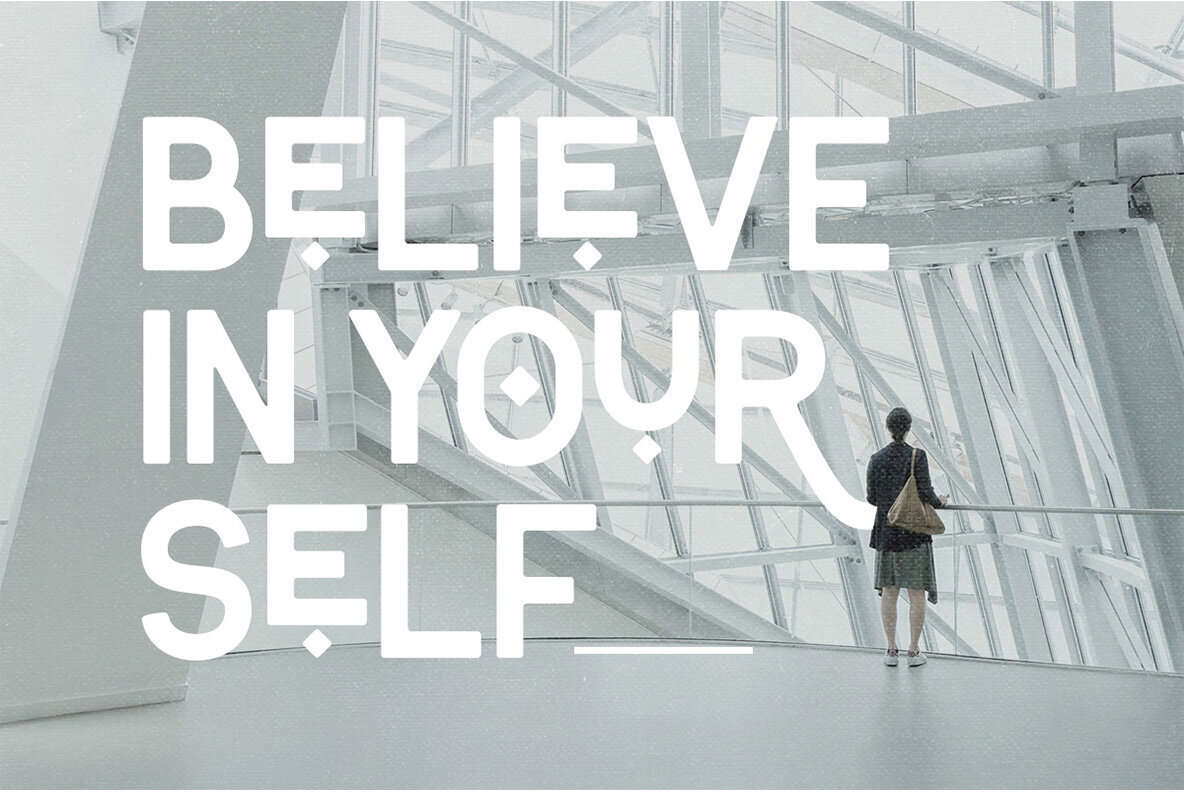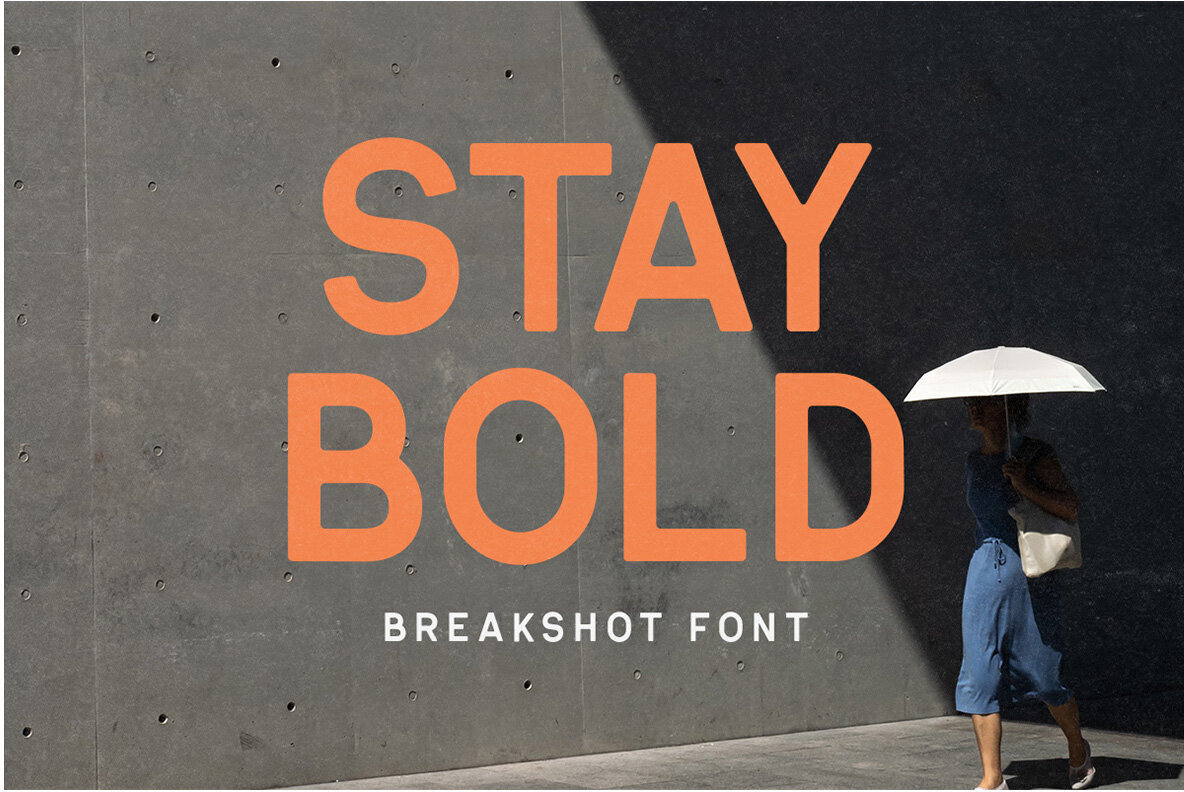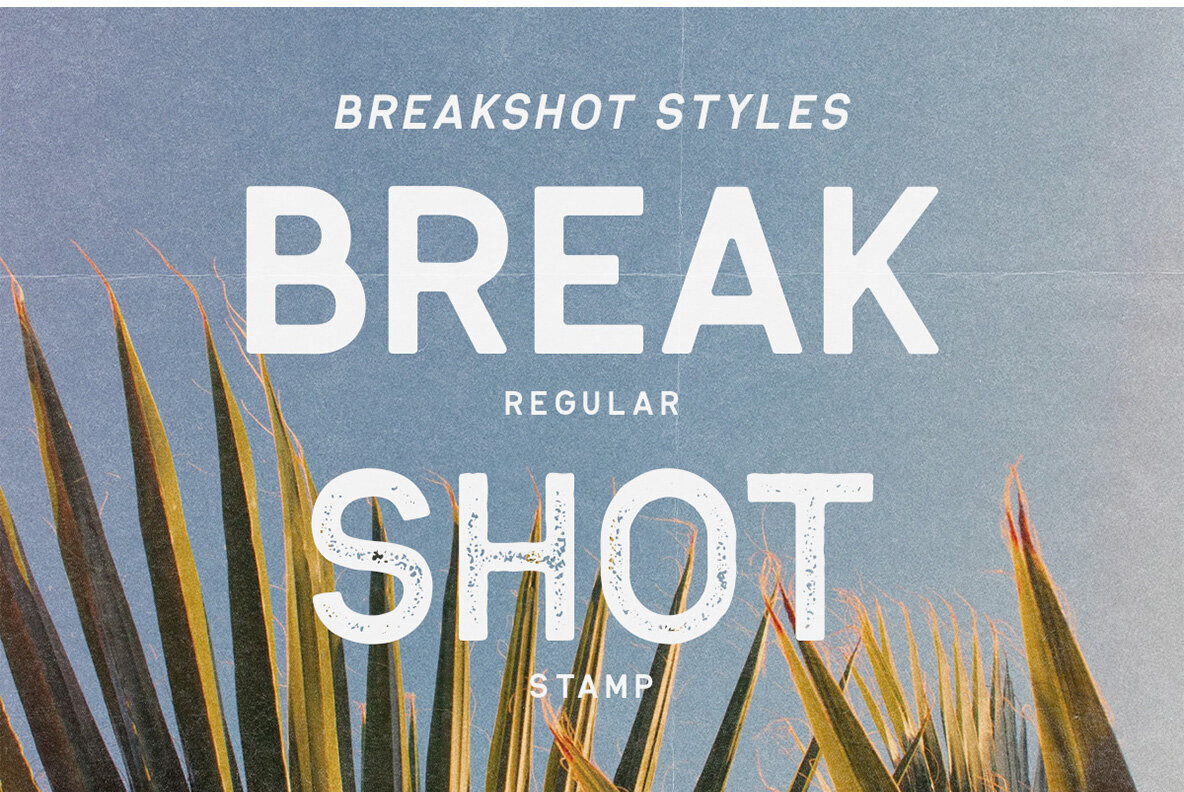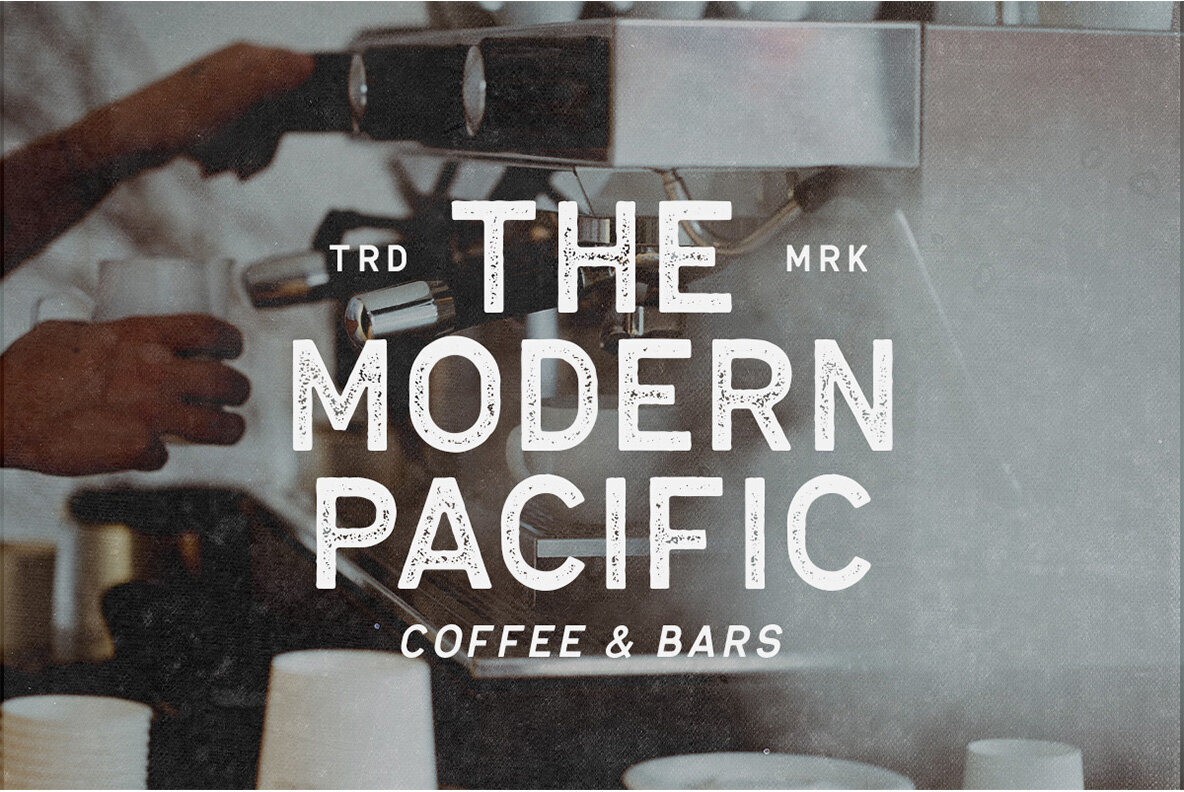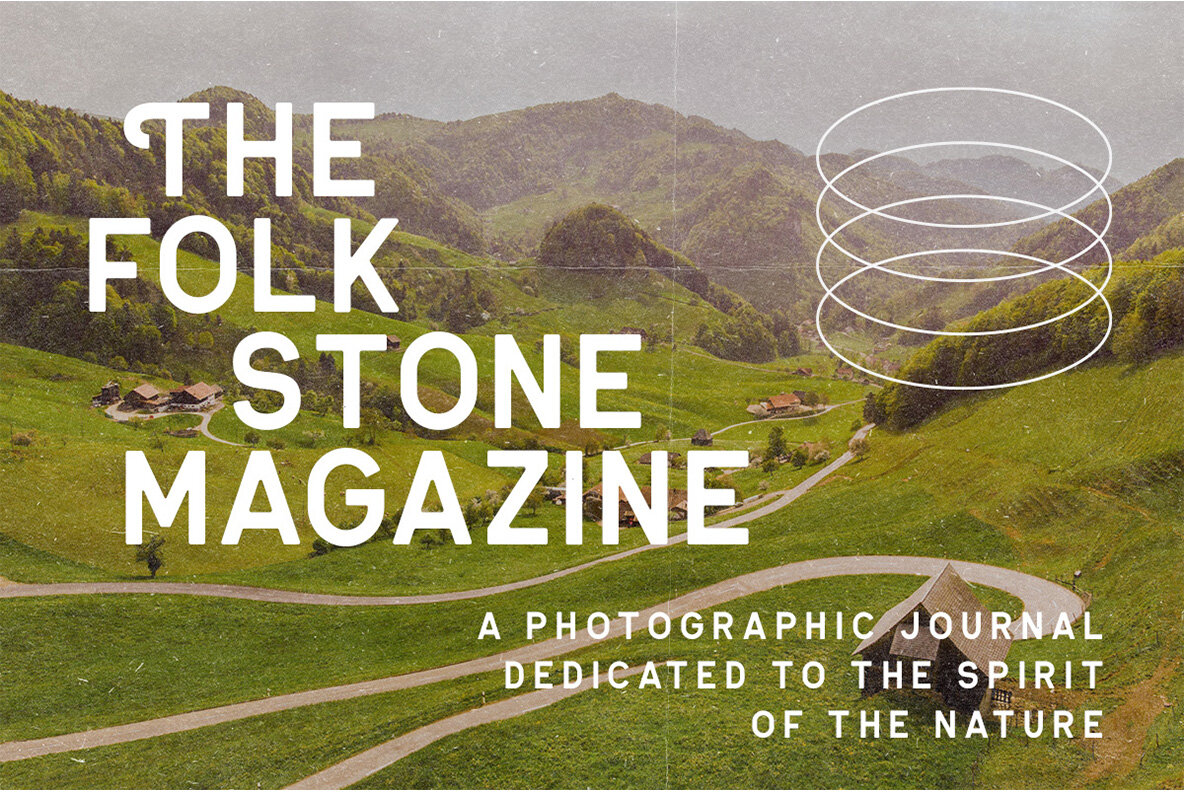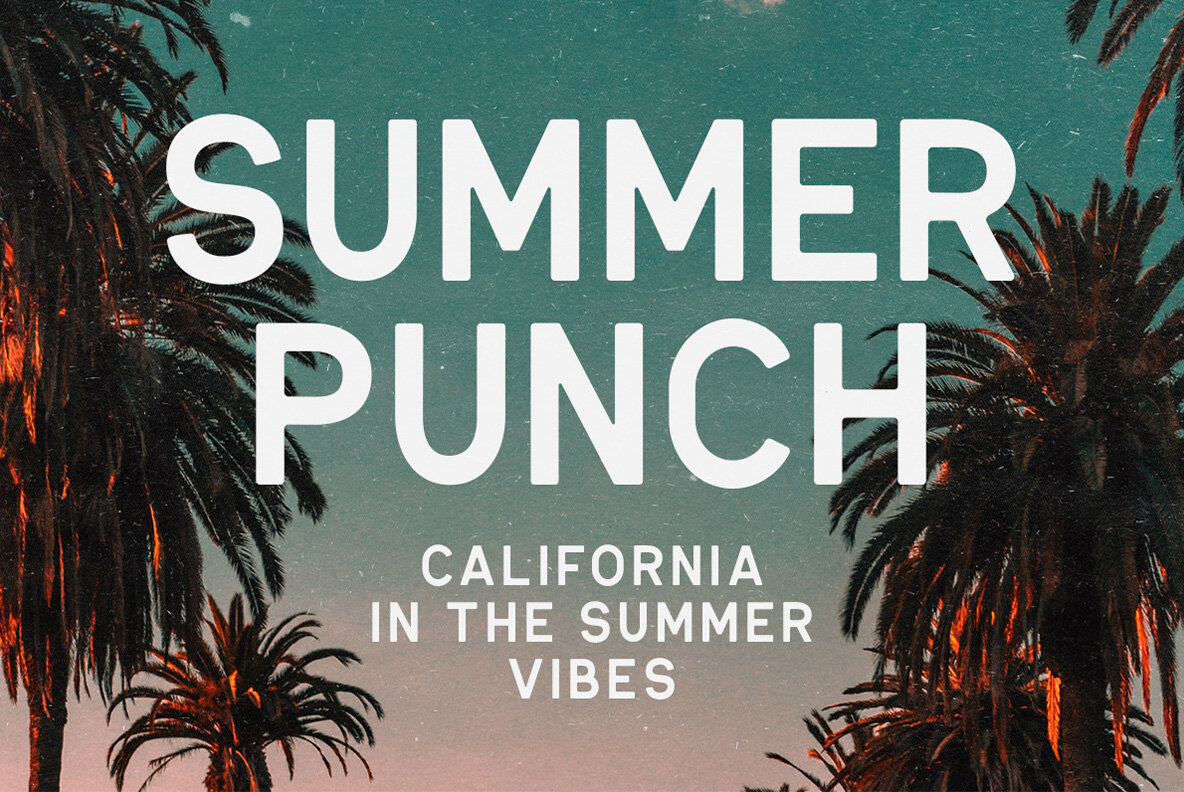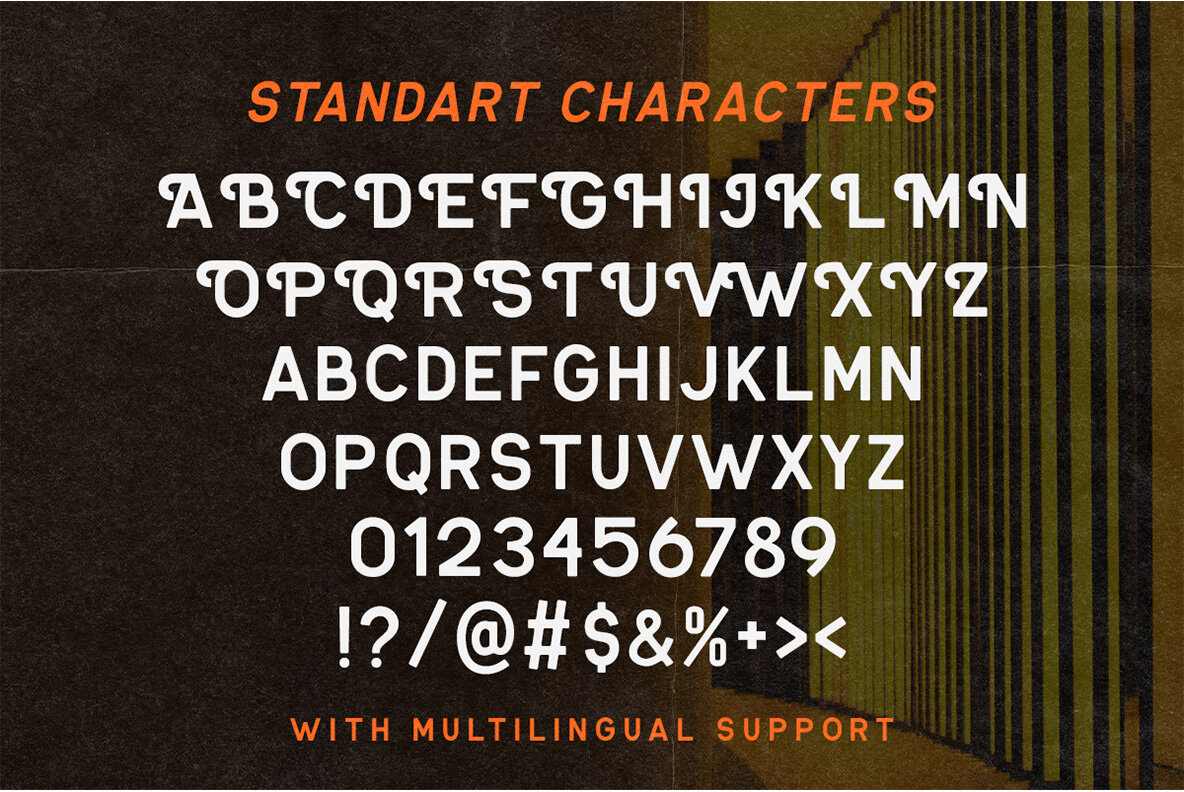
Break Shot Font
Unleash creativity with Break Shot, a bold display sans font conceived to command attention. Its robust design makes it ideal for a wide range of applications, from invitations and labels to logos and magazines. This typeface is not merely a font; it’s a statement that enhances projects like greeting cards, book covers, and advertisements. To fully leverage the capabilities of Break Shot, utilize software with robust OpenType support. Programs like Adobe Illustrator and Corel Draw allow you to explore its glyph variations extensively.Break Shot: Bold Display Sans for Impactful Designs